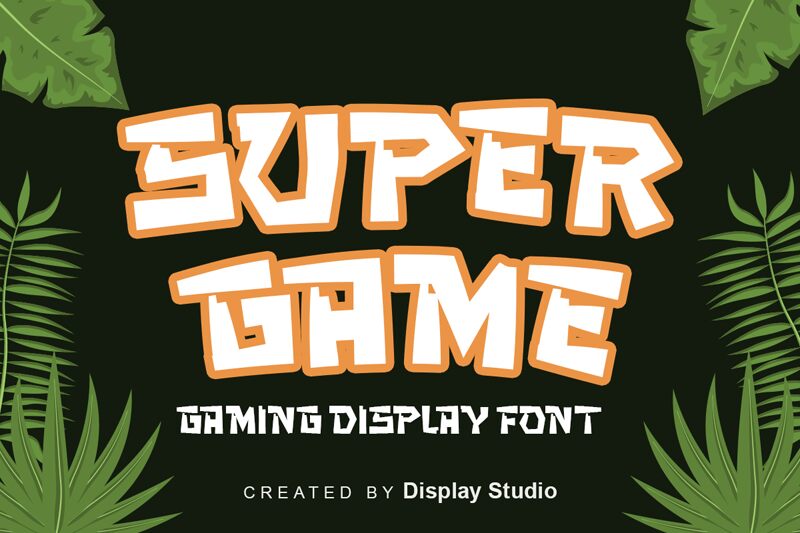
Introducing SUPER GAME font from Display Studio, a bold and wide display font perfect for gaming projects. Its unique style will bring an exciting and creative touch to any project. Use it to create logos, titles or any other type of graphics.
SUPER GAME